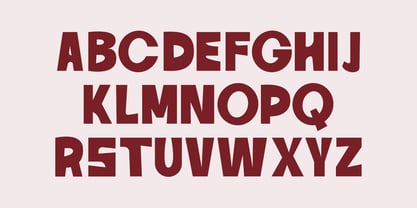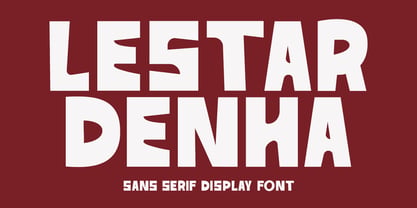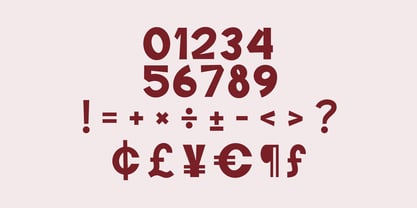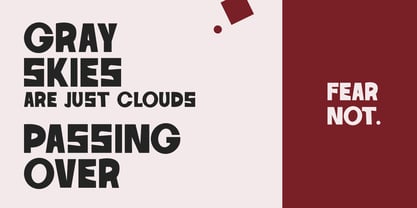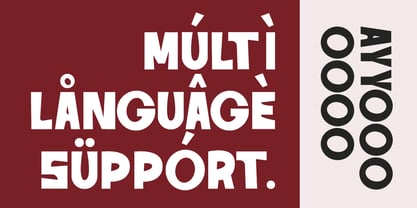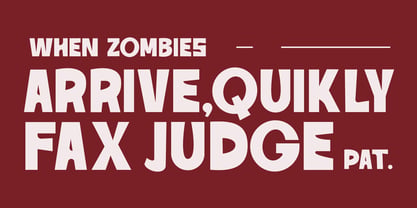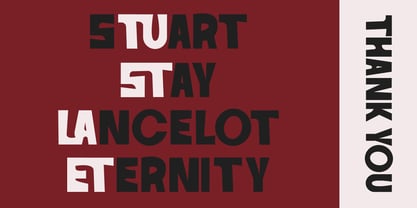
MC Lestar Denha
von Maulana Creative
Die Schriftfamilie MC Lestar Denha wurde von Gilang Maulana entworfen und von Maulana Creative veröffentlicht. MC Lestar Denha enthält 1 Stile. Mehr über diese Familie
Lestar Denha is an all caps experimental sans display font. Bold stroke, fun character with a bit of ligatures. To give you an extra creative work. Lestar Denha font support multilingual more than 100+ language. This font is good for logo design, Social media, Movie Titles, Books Titles, a short text even a long text letter and good for your secondary text font with script or serif. Make a stunning work with Lestar Denha font.
Designer: Gilang Maulana
Foundry: Maulana Creative